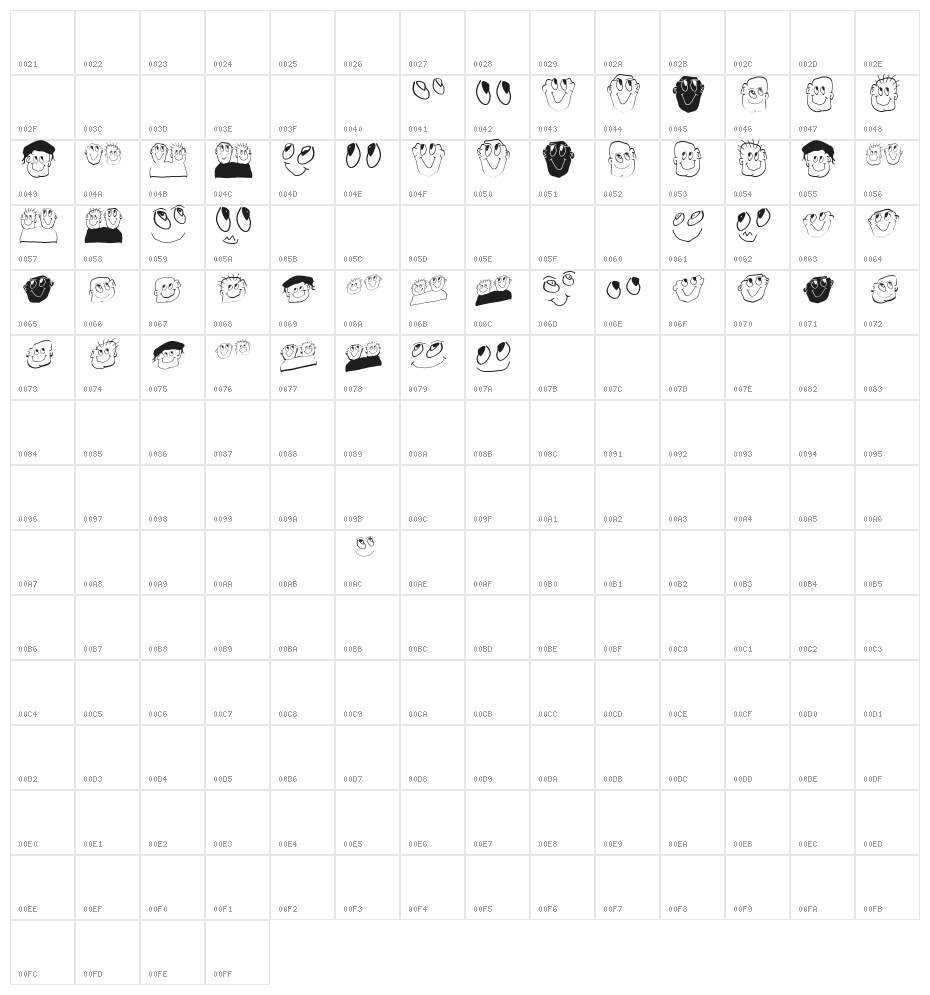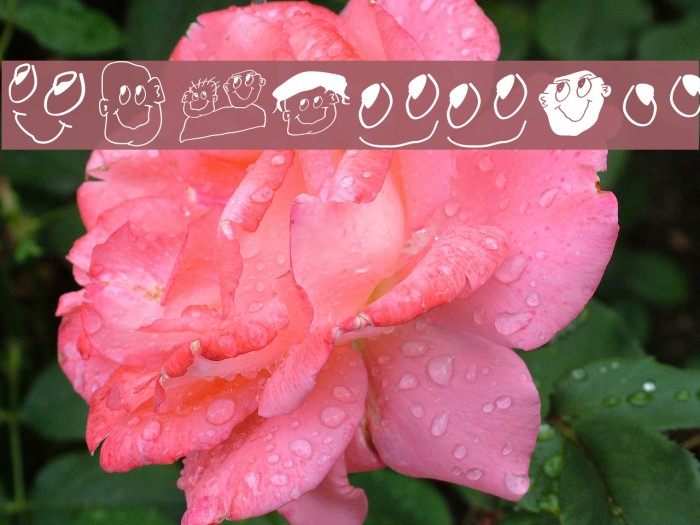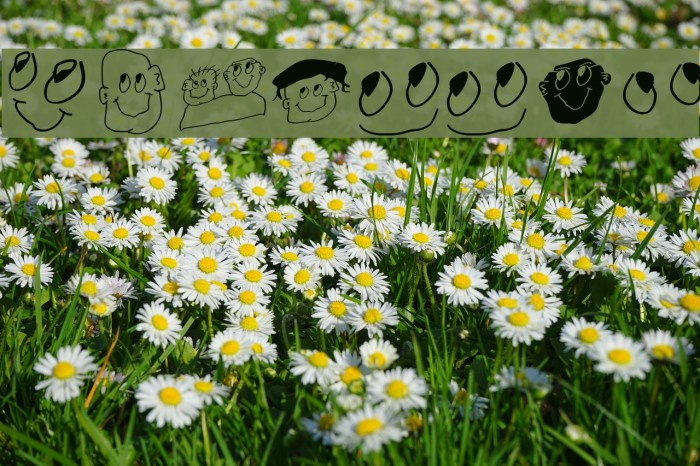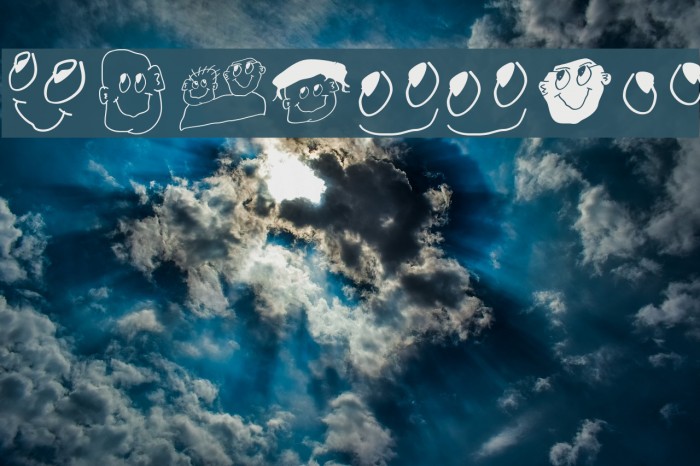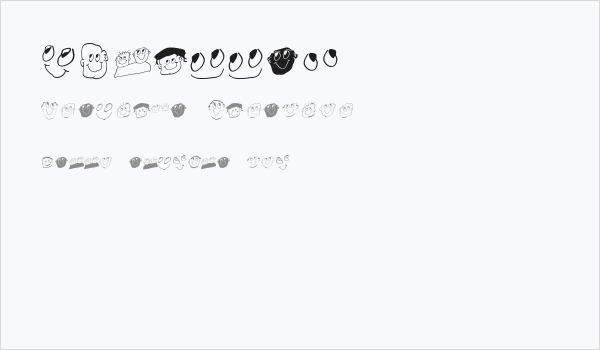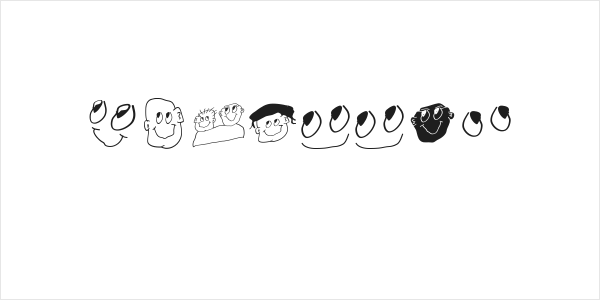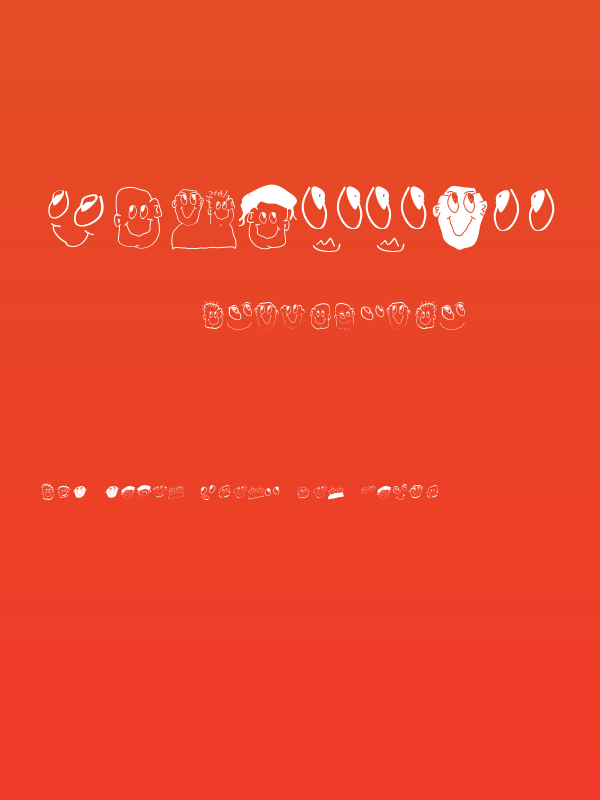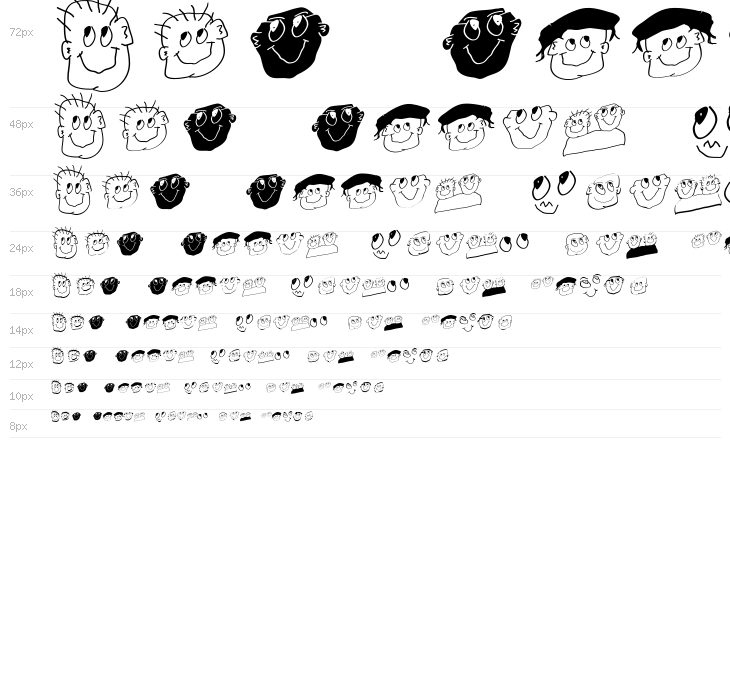
MSkizzen Font
MSkizzen Description
A playful, hand-drawn font where each character is represented by a whimsical cartoon face with varying expressions and hairstyles. The style is loose, sketchy, and highly illustrative, with irregular line thickness and a casual, friendly appearance.
Hand-drawn cartoon face font with playful, sketchy lines from Uncategorized fonts.
- Proposed Projects: Children's books, comic titles, playful branding, greeting cards, educational materials.
- Overall Style: Playful, Whimsical, Decorative
- Use Case: Logos, Headlines, Posters, Children's materials